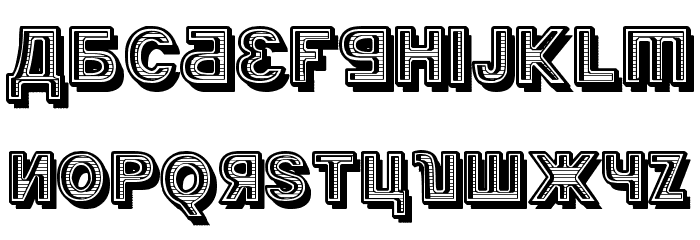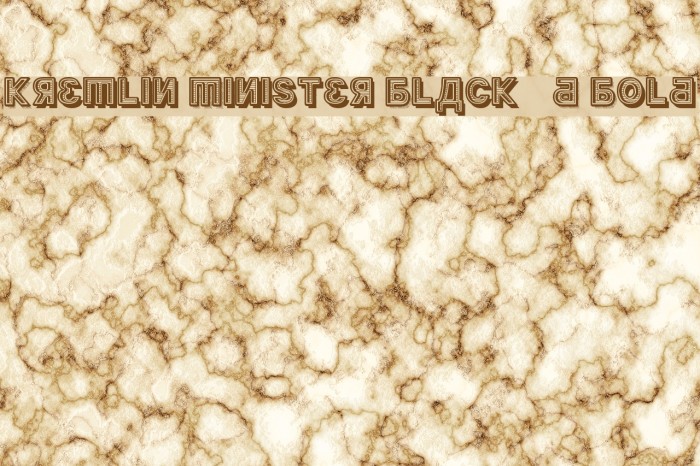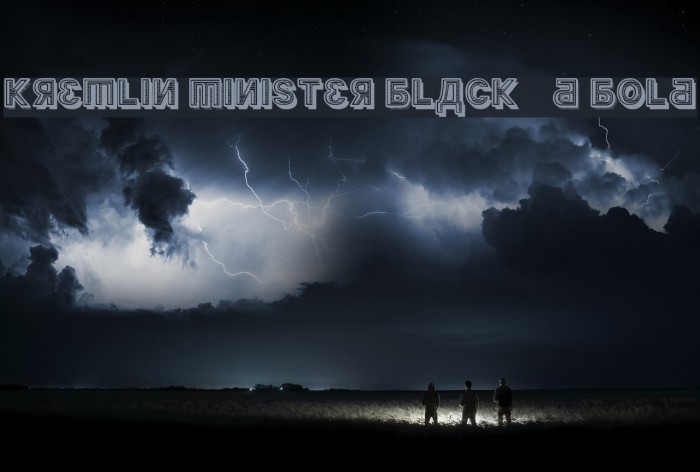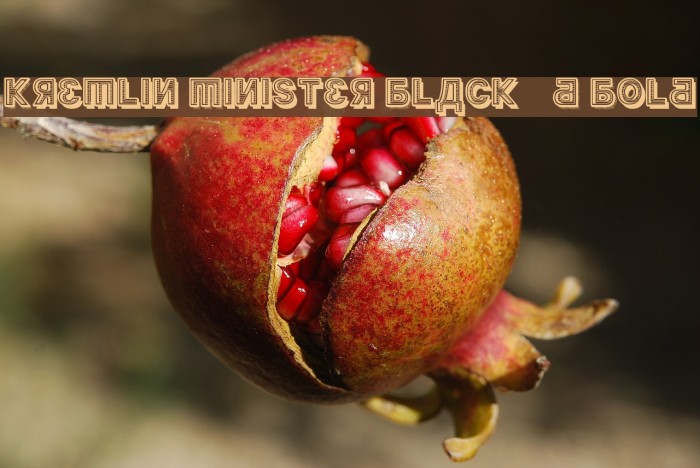
Kremlin Minister Black 3D Bold Font
This font features a bold, three-dimensional style with a distinct shadow effect that gives it a striking, impactful appearance. The characters are designed with a strong, geometric structure, incorporating sharp angles and clean lines that enhance its boldness. The 3D effect is achieved through a combination of thick outlines and inner detailing, creating a sense of depth and dimension. This font is highly decorative, making it ideal for attention-grabbing headlines or titles. The overall style is modern with a touch of vintage flair, reminiscent of retro signage or posters. The uppercase letters are particularly prominent, with a consistent height and width that contribute to a cohesive look.
A bold, 3D decorative font with a modern yet vintage flair.
- Proposed Projects: Ideal for poster designs, retro-themed branding, eye-catching headlines, and creative advertising projects.
- Overall Style: Modern, Vintage